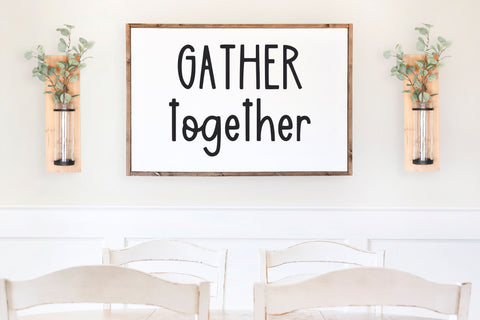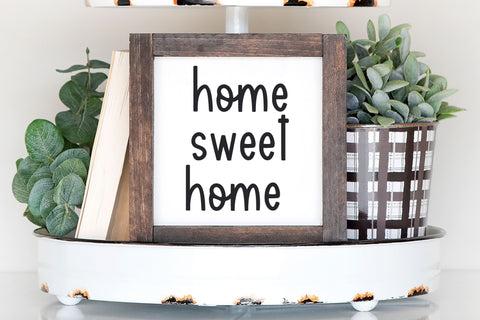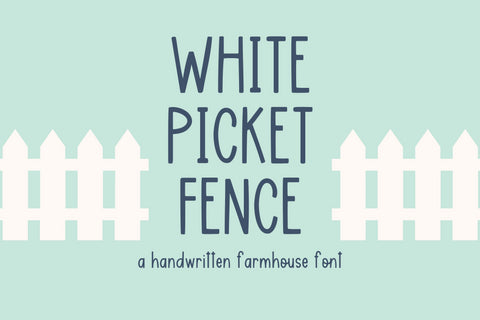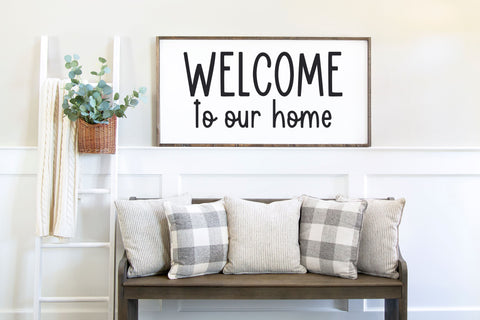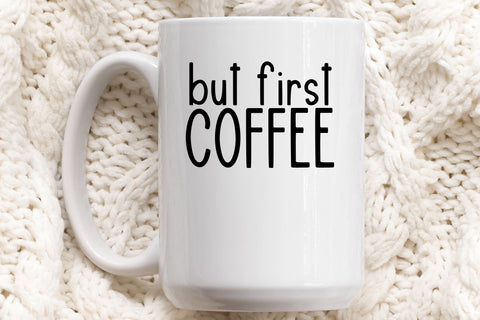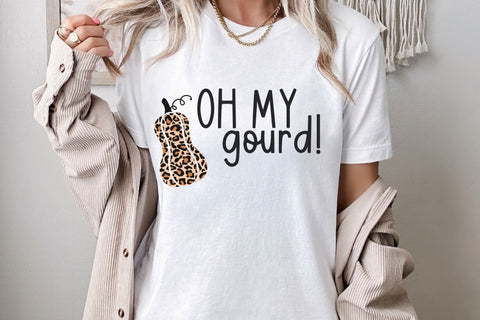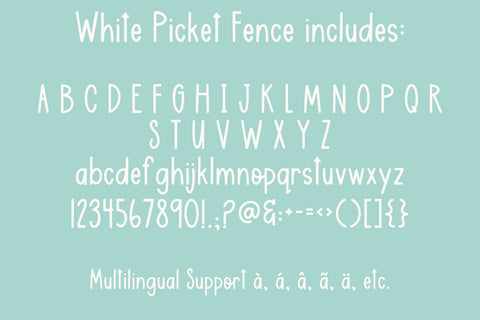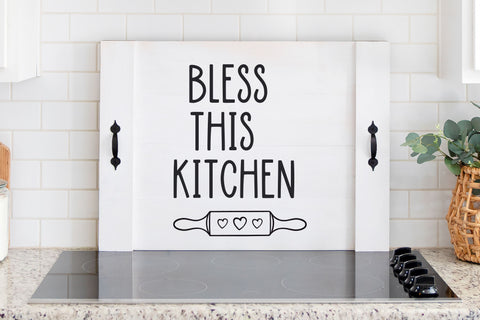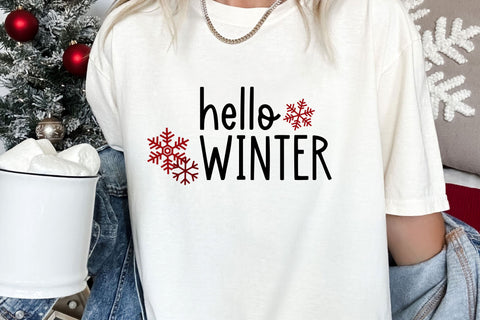
White Picket Fence, Farmhouse Handwritten Font for Cricut, Cute Handwriting
Introducing White Picket Fence, our charming Farmhouse Handwritten Font, the perfect addition to your creative projects! With its playful and fun handwriting style, this Cricut font will bring a touch of warmth and authenticity to your crafts. Whether you're designing rustic farmhouse signs, personalized stationery, or handmade cards, this versatile and enchanting font will surely impress. Our script font is compatible with Cricut SVGs, Goodnotes, Procreate, and many other programs. Transform your designs into stunning works of art with our versatile farmhouse font, the ultimate choice for anyone seeking a captivating and expressive typeface for their projects.